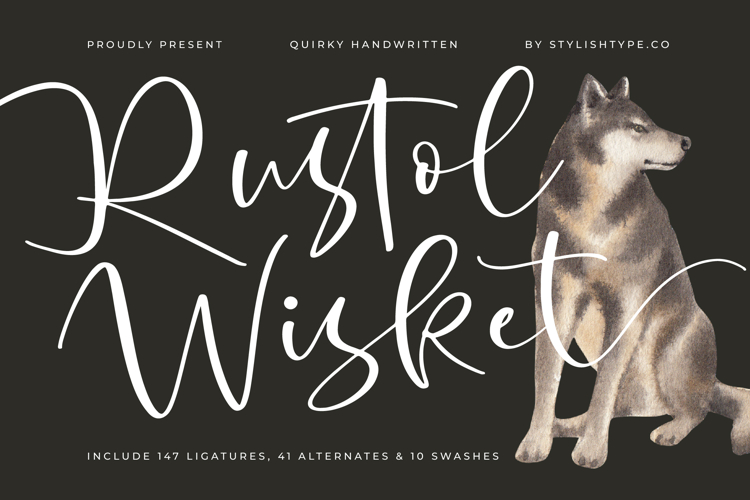
Rustol Wisket - Quirky Handwritten Font
Rustol Wisket is a quirky handwritten font that blends playful creativity with modern handwritten elegance. With 147 ligatures, 41 alternates, and 10 stylish swashes, this typeface provides extensive design flexibility, allowing you to create unique and expressive lettering compositions that feel both authentic and stylish. Every character was designed with organic flow and careful detail, making this font ideal for projects that require a touch of personality and professional polish.